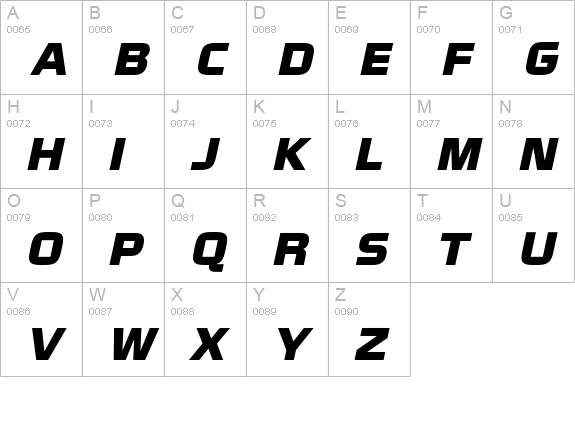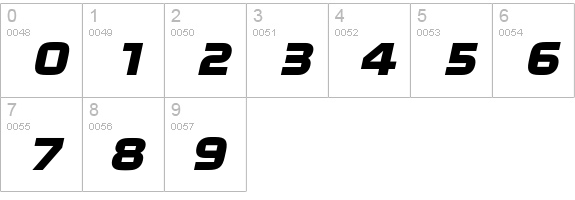
NissanOpti-Italic Font Details
NissanOpti-Italic is a distinctive, italic variant in the NissanOpti typeface family \xE2\x80\x94 well suited to design and typography projects.
NissanOpti-Italic font embodies elegance and sophistication with its sleek and stylish design. Its italicized letters exude a sense of flair and modernity, making it a perfect choice for projects that require a touch of sophistication. The smooth curves and clean lines of this font make it a versatile option for a wide range of design applications. And the best part? NissanOpti-Italic font is completely free to download at FontsMarket.com. Whether you're working on a professional project or simply looking to add a touch of class to your personal designs, NissanOpti-Italic font is the perfect choice. Download it today and elevate your designs with its timeless appeal.